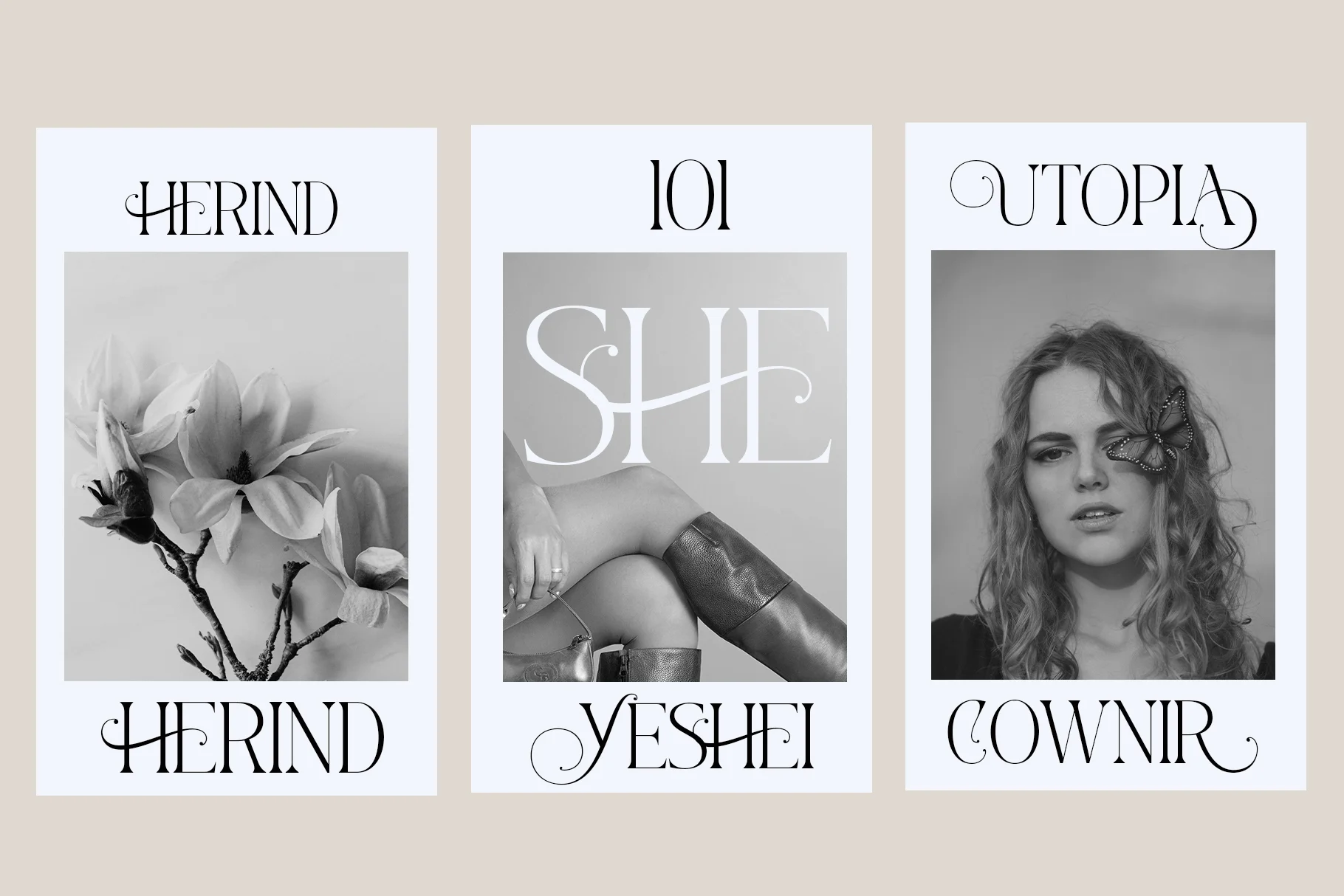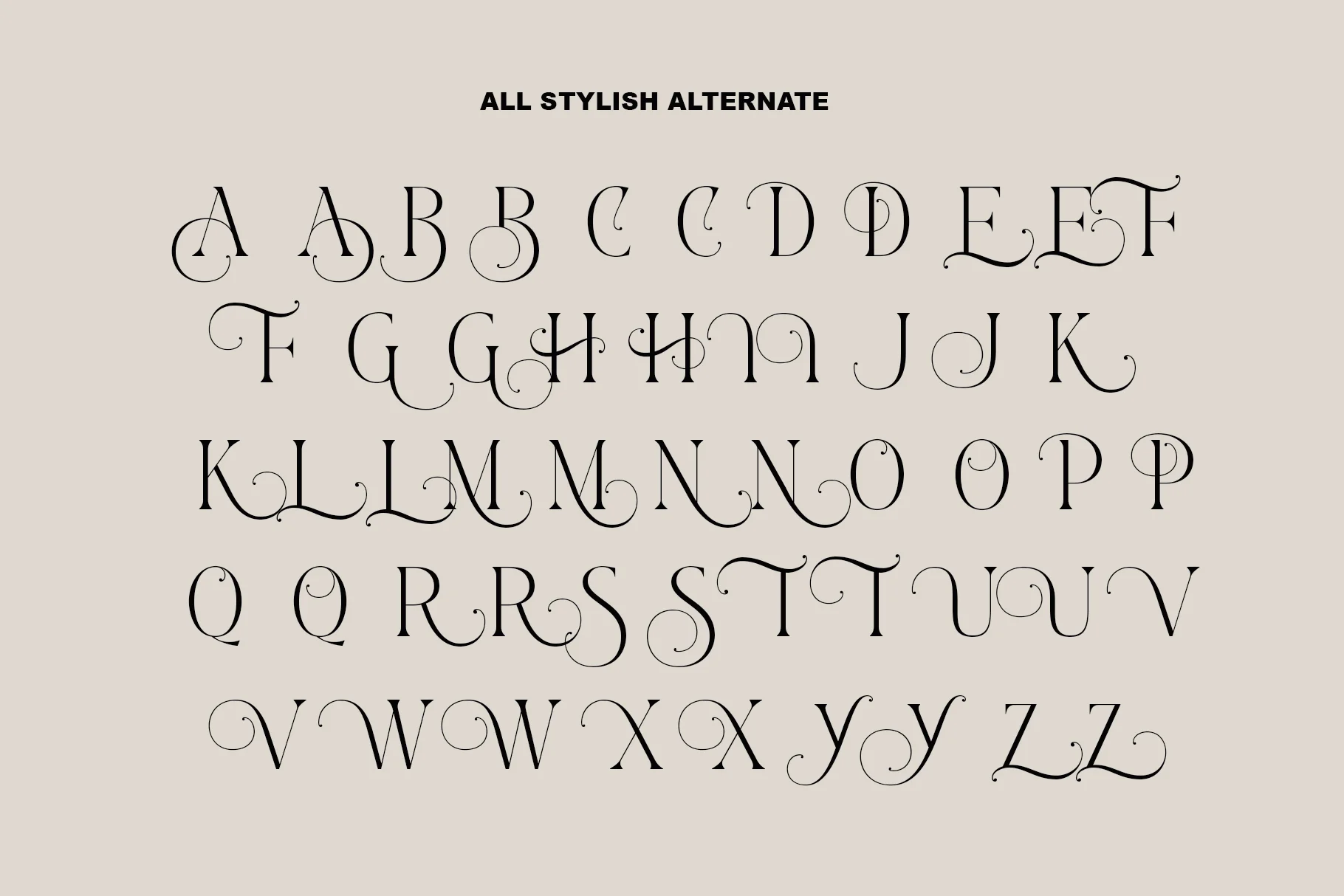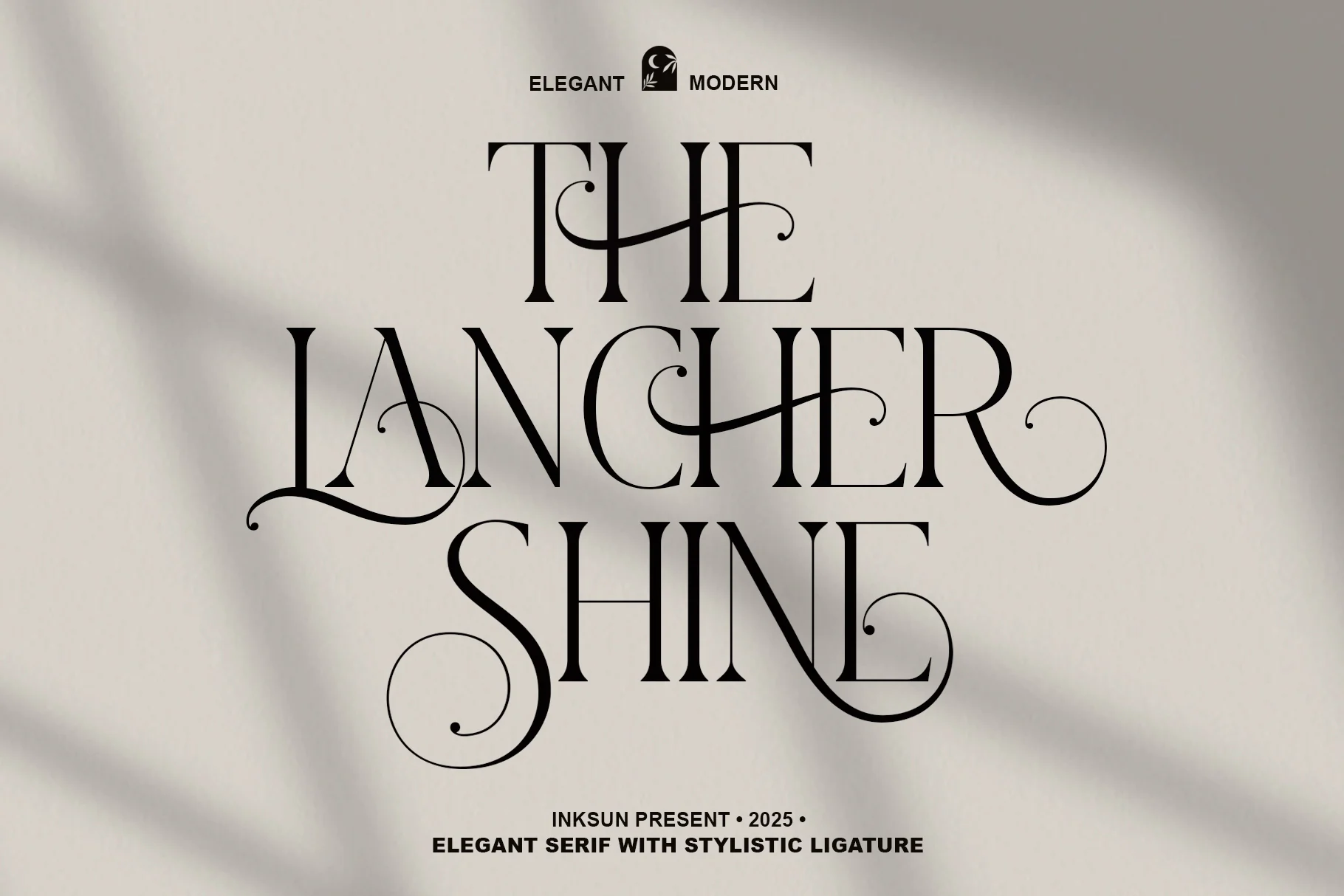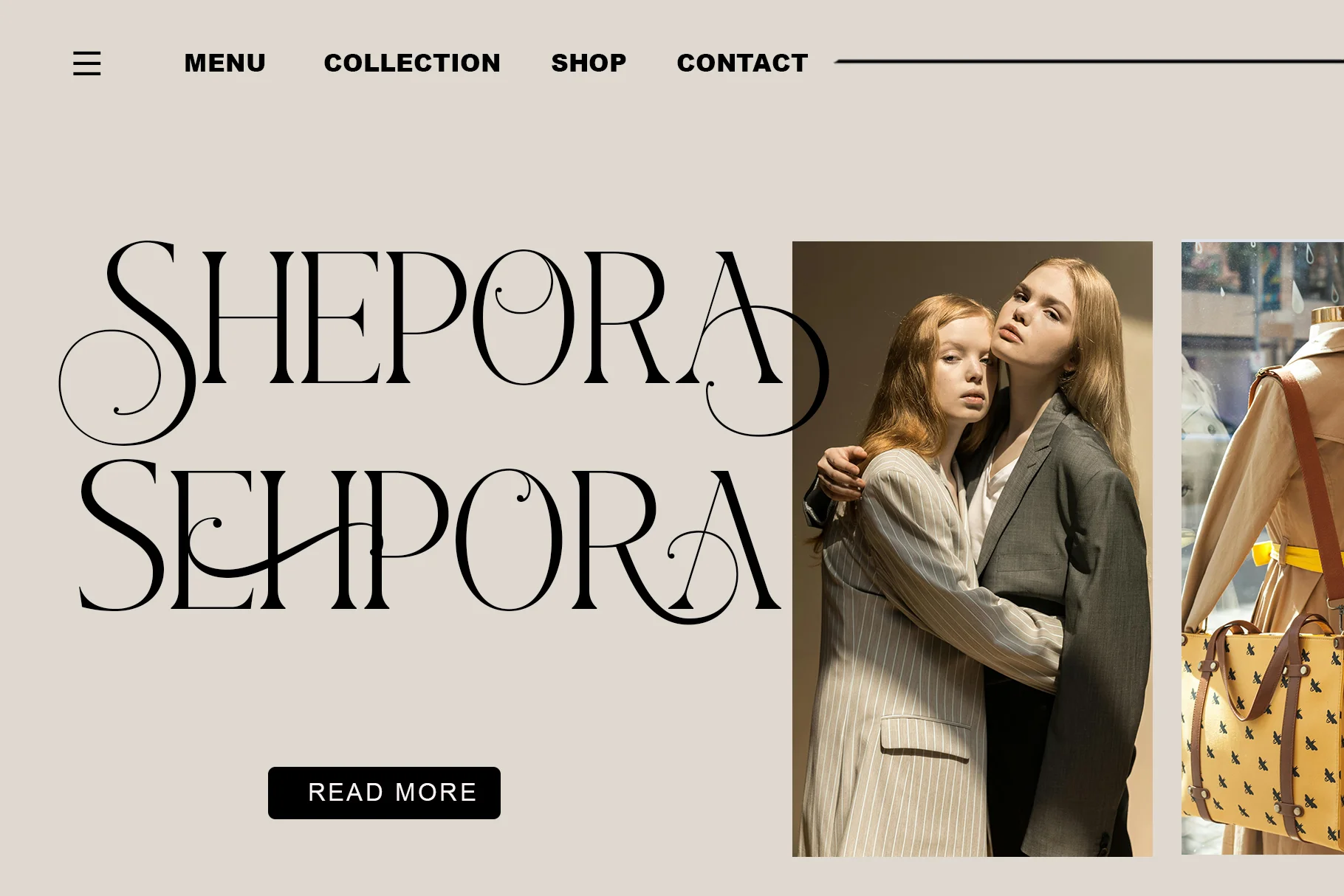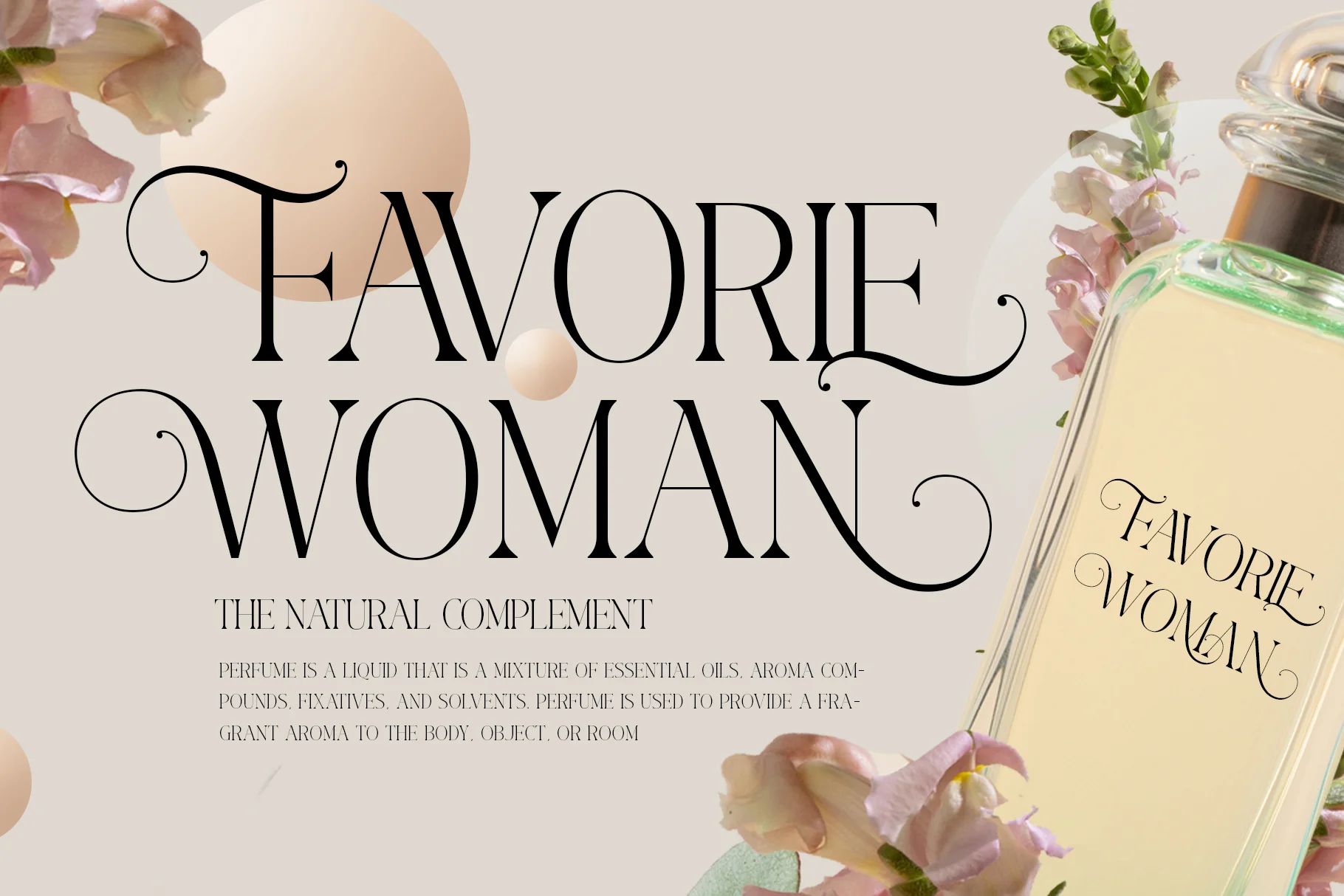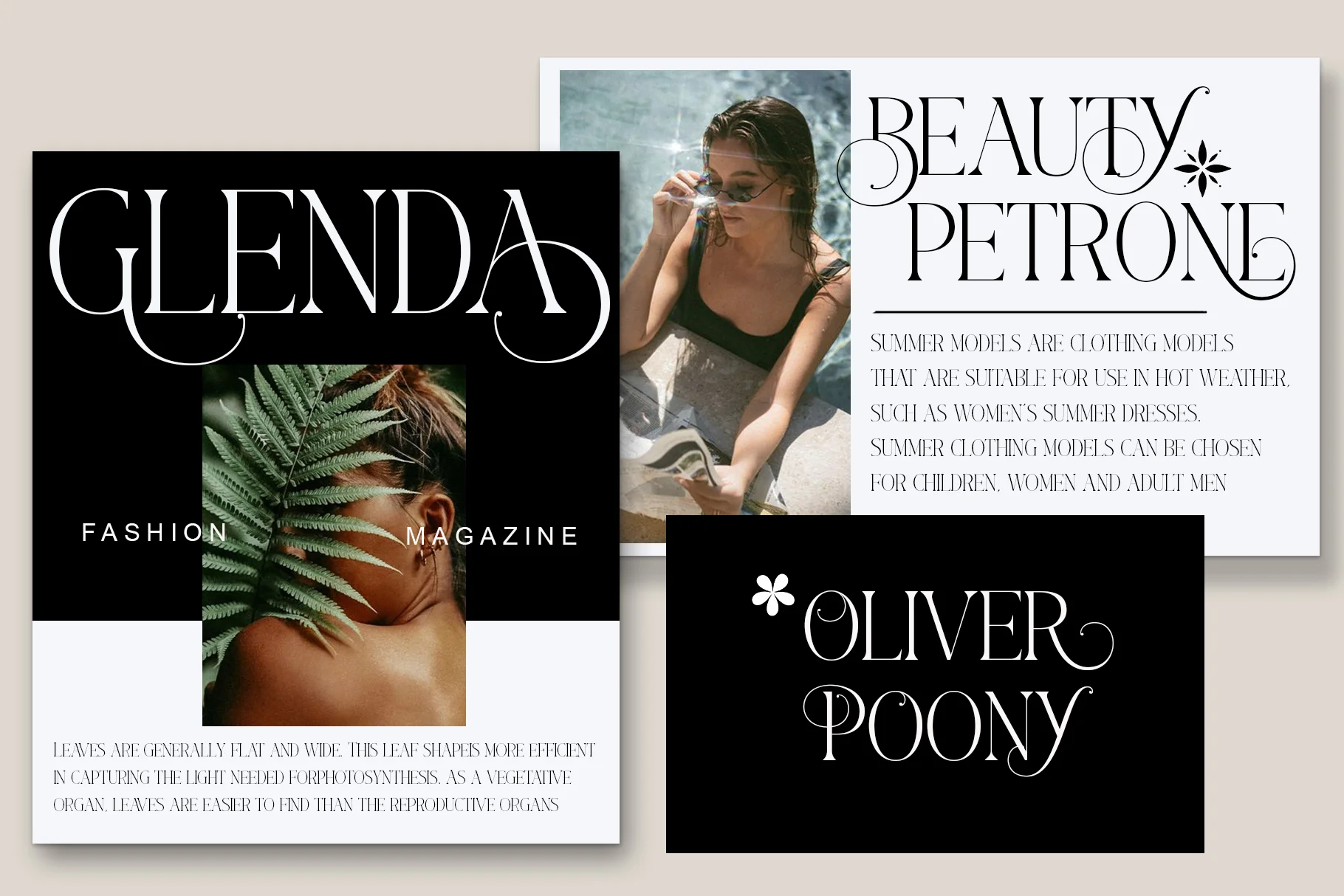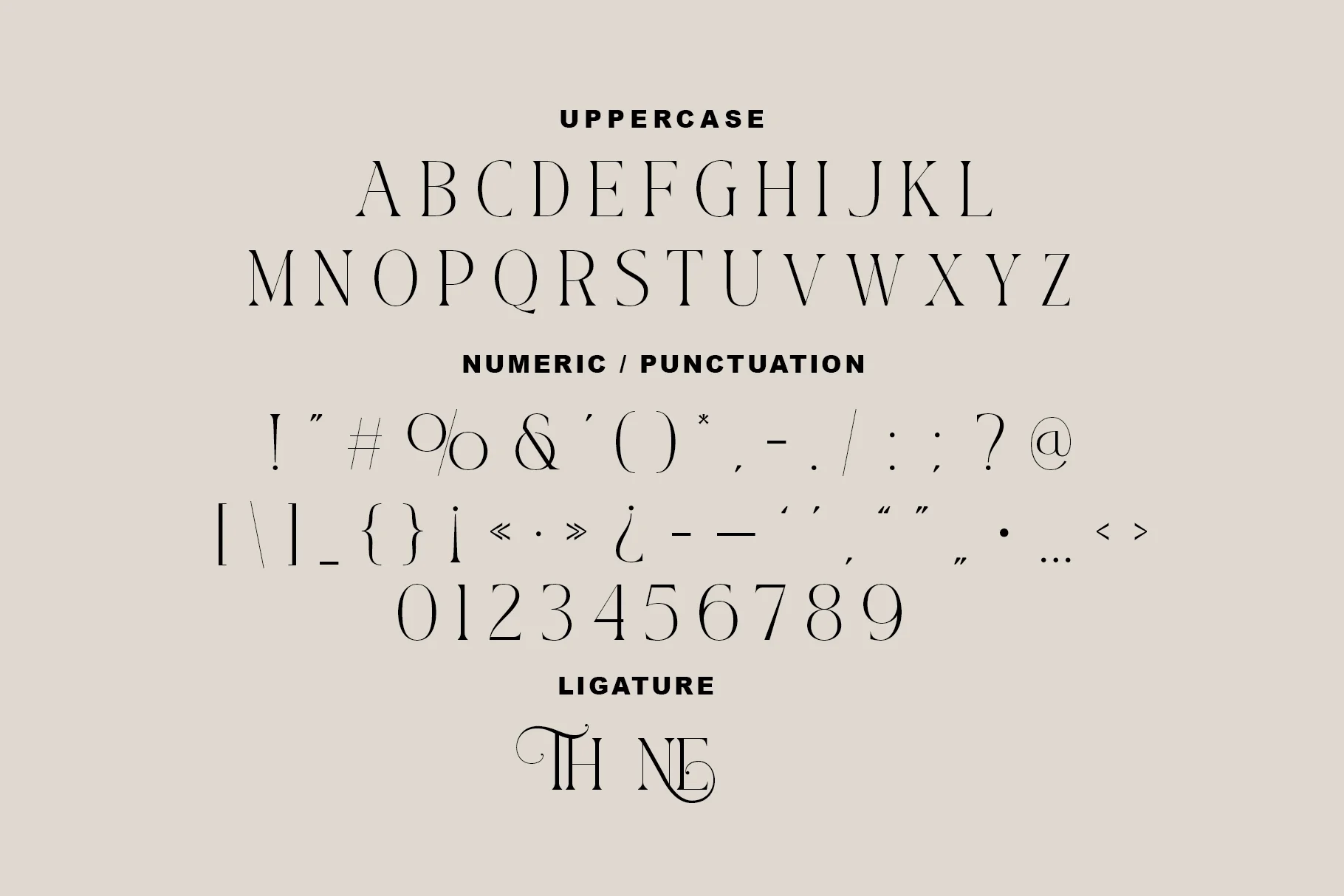
Lancher
Hello, this time we would like to introduce a new product. namely "Lancher", a Serif display font that has a classic, feminine, and elegant style wrapped with a beautiful Alternate stylist.